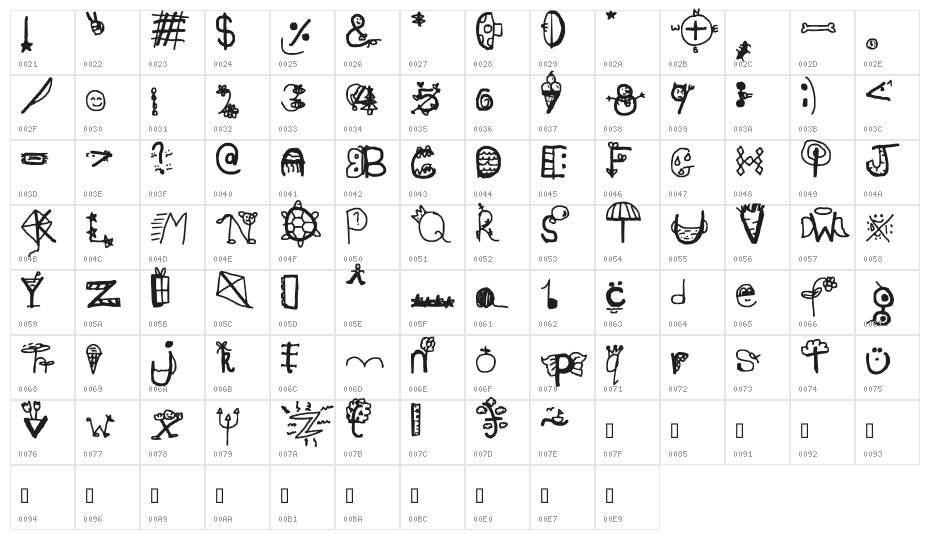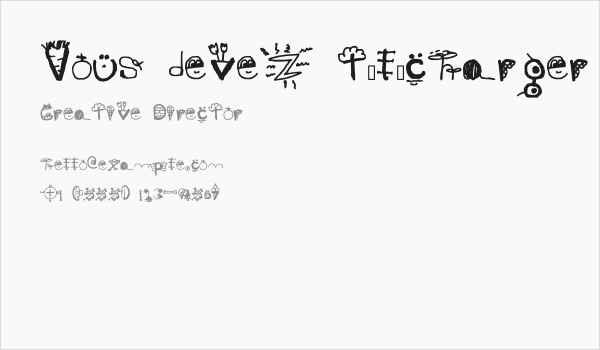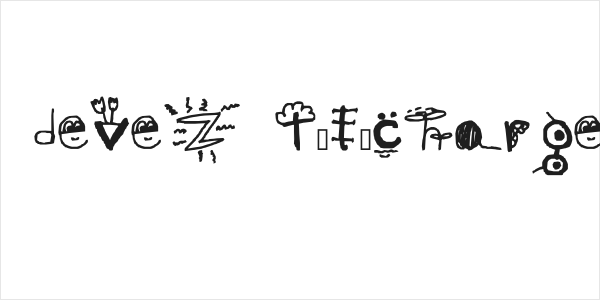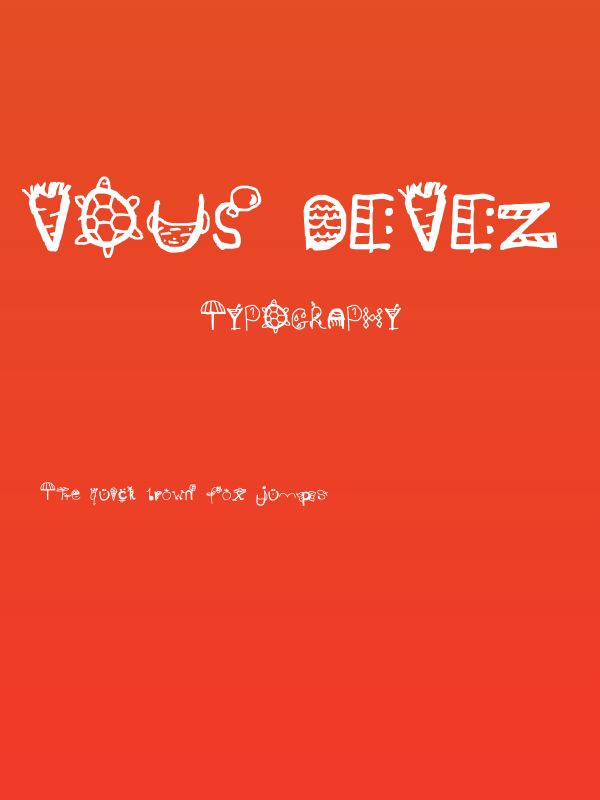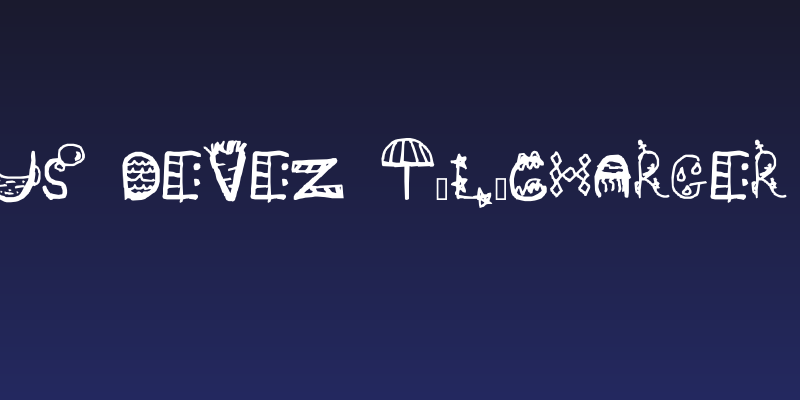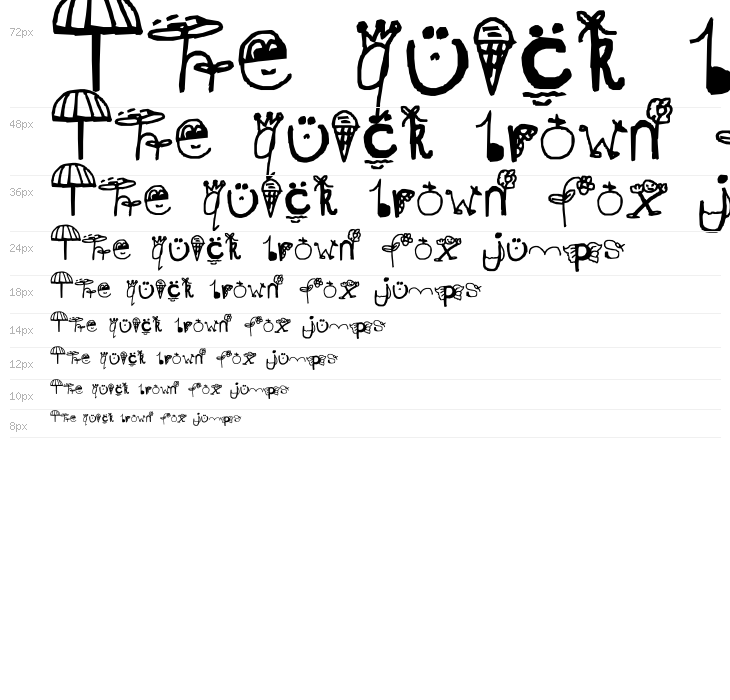
Vous devez télécharger ce! Font
Vous devez télécharger ce! Description
This font is a highly decorative and whimsical typeface, featuring playful and imaginative designs for each character. Each letter and number incorporates unique, illustrative elements such as hearts, arrows, and abstract shapes, creating a lively and artistic appearance. The font has a hand-drawn quality, with varying line thicknesses and quirky embellishments that give it a distinctive, creative flair. The special characters continue this theme, adding to the overall eclectic and fun style. This font is perfect for projects that require a touch of creativity and individuality.
| Proposed Projects | Ideal for children's books, creative posters, playful branding, and artistic invitations. |